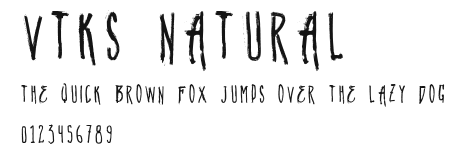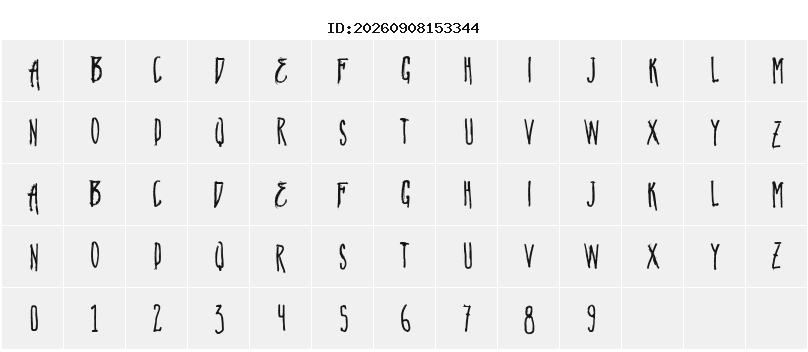
vtks natural Preview
• Font Name: vtks natural
• Font ID: vtks natural:Version 1.00
• Full Font Name: vtks natural
• Version: Version 1.00 January 2, 2012, initial release
• PostScript Name: vtksnatural
• Designer: douglas vitkauskas
• Manufacturer: douglas vitkauskas
About vtks natural.ttf
vtks natural.ttf is a modern, elegant sans-serif font designed for ultimate readability and visual harmony. Perfect for branding, headlines, web design, and print materials.